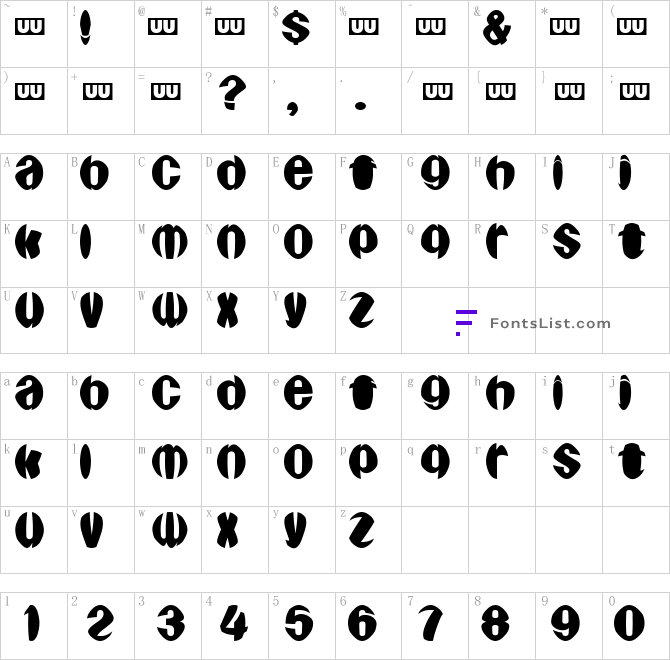
- Font Name:Aragones
Aragones.ttf is a very beautiful artistic font, Aragones.ttf is widely used in the design and printing of various books and pictures,Aragones.ttf has a strong visual impact,Aragones.ttf is a commonly used font in newspapers, magazines and books, and is used in posters, e-commerce Poster design, store design, logo design, font design and other fields.Aragones.